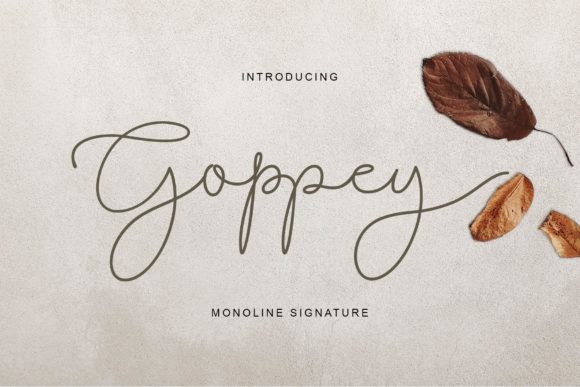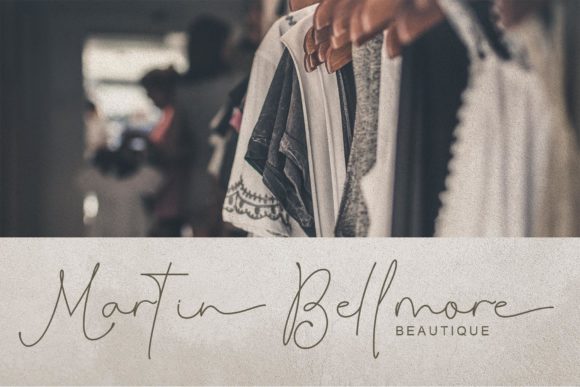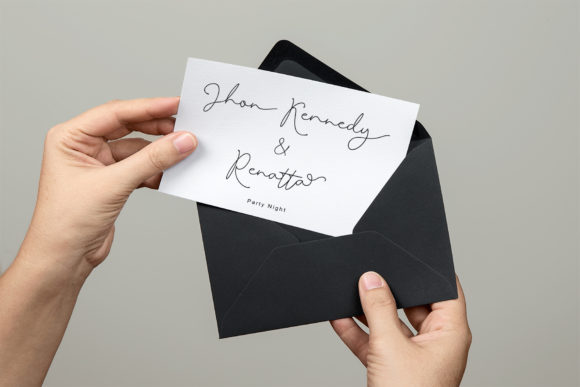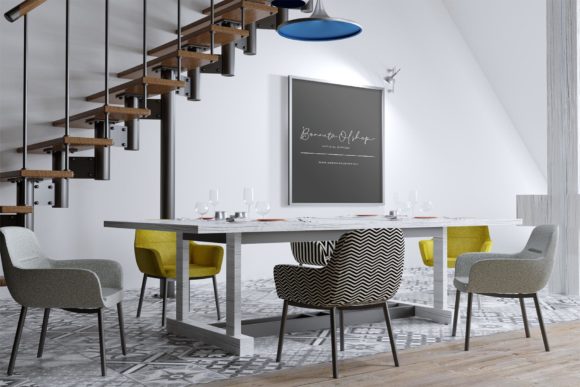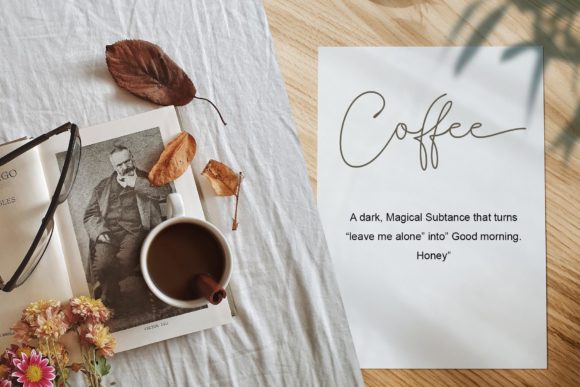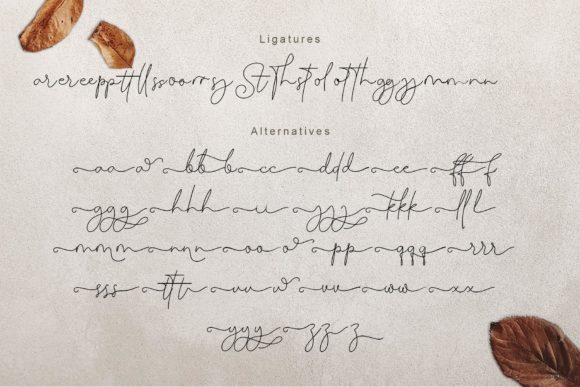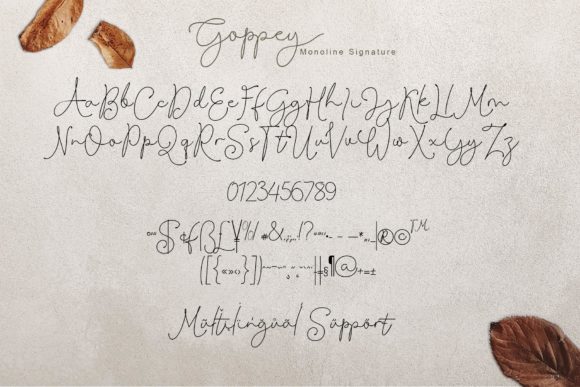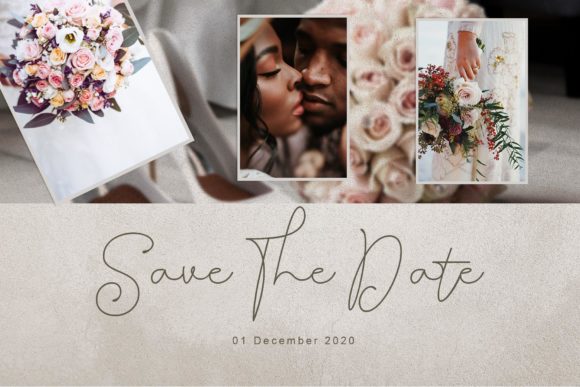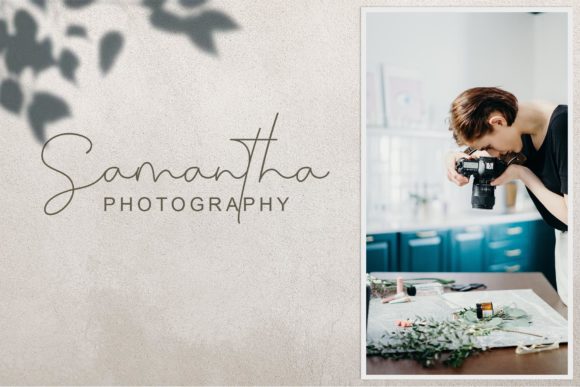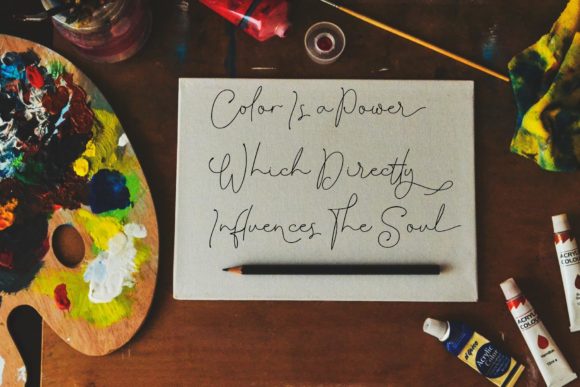
Goppey Font
About Goppey Font
Goppey is a sweet and delicate handwritten font. It has a clean, thin and smooth vibe and it will be a hit for any design that you want to add it to.
It is suitable for any branding, product packaging, invitation, quote, t-shirt, label, poster, logo that you wish to develop.